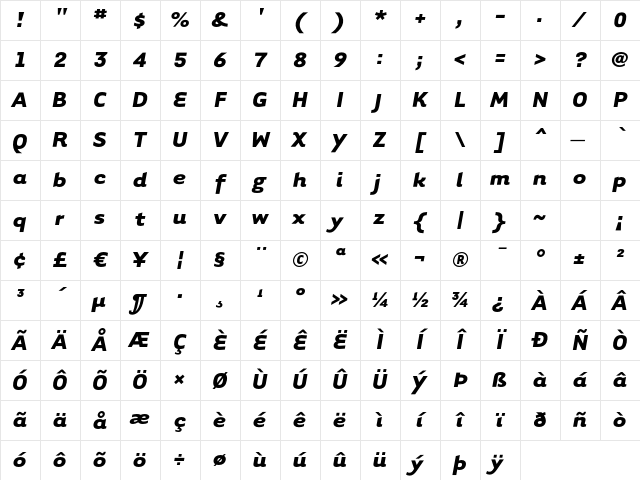
TarzanaWide BoldItalic Free Font
TarzanaWide BoldItalic
Design Context for TarzanaWide
TarzanaWide is a composed and adaptable typeface that performs quietly and consistently across a wide range of design contexts. The slanted form adds forward momentum and visual energy. Its bold stroke weight gives it real presence on the page.
Pro Tip: Use TarzanaWide for emphasis, pull quotes, and subheadings where its slanted energy can add rhythm to the layout.